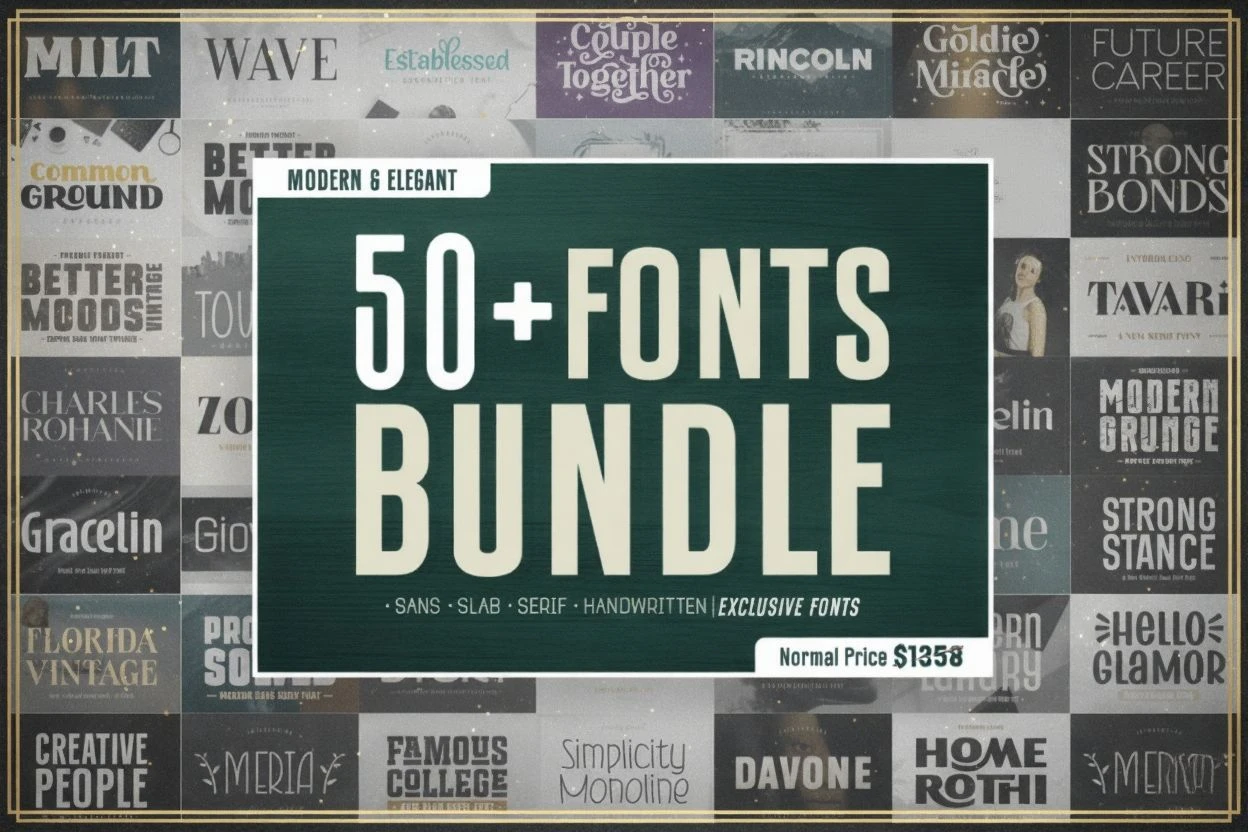
Modern and Elegant Font Bundle – Premium Typeface Set
There’s something satisfying about finding a font bundle that actually feels usable instead of stuffed with random filler fonts you’ll never open again. This one leans much more practical. The mix of serif, sans serif, slab, and handwritten styles makes it easy to pull together different kinds of projects without hunting through dozens of separate font packs.
Modern and Elegant Font Bundle includes more than 50 premium fonts designed for branding, packaging, social media graphics, invitations, editorial layouts, and small business design work. A lot of the styles share that clean modern look that’s been popular lately, but there are still enough personality-driven typefaces inside to keep projects from feeling repetitive.
A Useful Mix of Font Styles
This bundle covers several categories, which makes it more flexible than buying a single font family:
- Sans serif fonts for clean branding and modern layouts
- Serif fonts for luxury packaging and editorial designs
- Slab fonts with a stronger, more structured look
- Handwritten fonts for invitations, social posts, and product labels
That variety matters more than people think. When working on branding, especially for Etsy shops or small product businesses, having complementary font styles in one collection saves a lot of time. I’ve seen designers spend more time pairing fonts than building the actual design.
The handwritten fonts especially work nicely for:
- Candle labels
- Boutique packaging
- Pinterest graphics
- Beauty product branding
- Wedding templates
And the cleaner sans serif options fit well for minimalist logos and website headers where readability still matters.